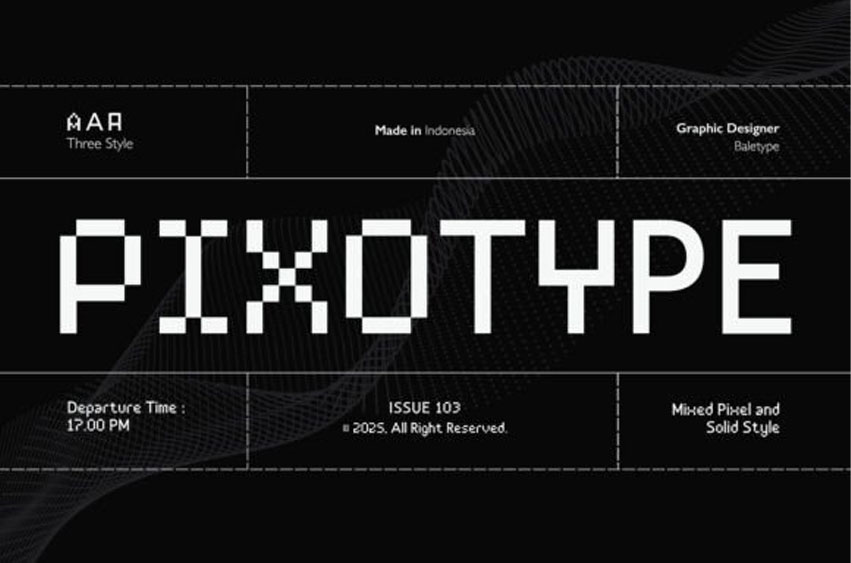
Pixotype Font
Pixotype Font is a pixel sans with a solid style as alternates. You can use this font for any purpose, such as a game, a hi-tech poster, a logotype, or even quotes.
Including two stylish alternates set each uppercase character that you combine to make your designs more trendy and stunning.